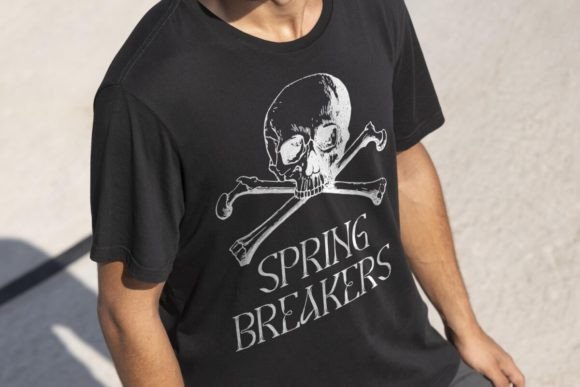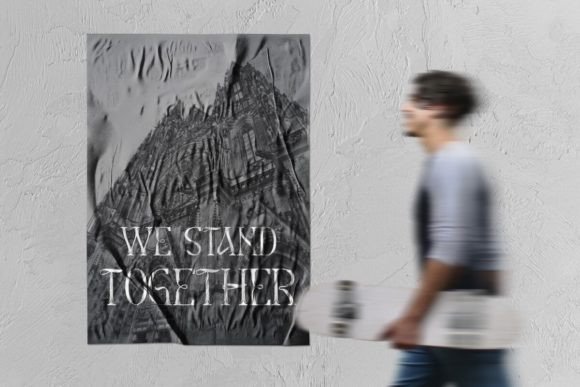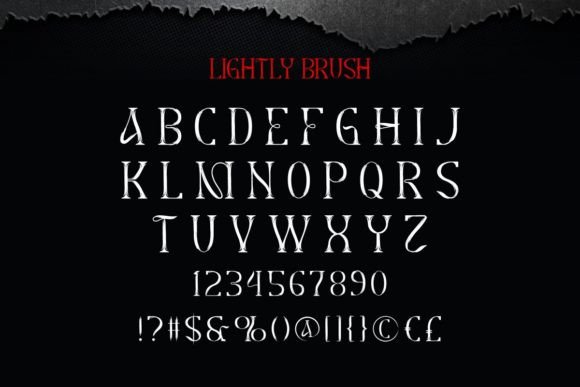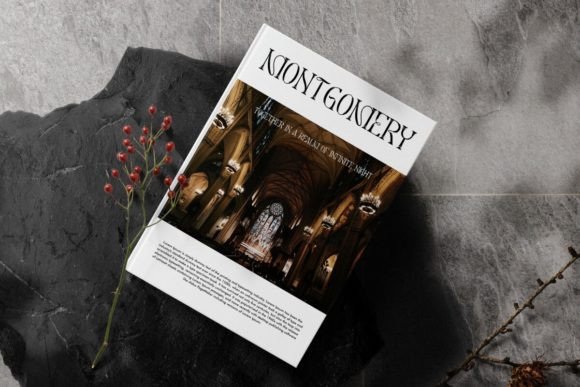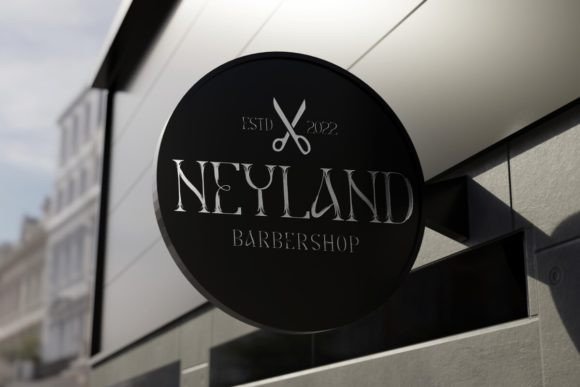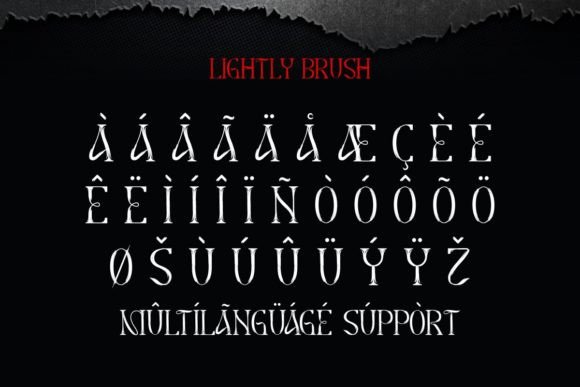
Introduction to Lightly Brush Font
Have you ever stared at a blank canvas, trying to conjure up the perfect design to captivate your audience? The blank page can be intimidating, but what if you had the right tool to bring your creative vision to life? That’s where the enigmatic Lightly Brush Font comes in – a uniquely mysterious serif display font that’s sure to add an air of sophistication and a hint of eeriness to your designs.
This captivating font is perfect for designers looking to add a touch of the unknown to their creative projects. With its free download option and transparent background, you can seamlessly integrate it into your designs, from billboards and headers to labels and posters. Whether you’re working on a high-end advertising campaign or a low-budget DIY project, the Lightly Brush Font is an invaluable design resource that’s sure to elevate your work to new heights.
Key Features of Lightly Brush Font
- High-quality design resource ideal for creative projects requiring a unique touch
- Features a transparent background, allowing for seamless integration with any design
- Perfect for designers seeking a stylish, handwritten font for their next project
- Includes a range of characters, including uppercase and lowercase letters, numbers, and punctuation
Honest Review: Lightly Brush Font
I recently came across the Lightly Brush Font, and I was excited to give it a try. As a designer, I’m always on the lookout for high-quality design resources to elevate my creative projects. The Lightly Brush Font did not disappoint.
- The font has a beautiful, hand-drawn feel that’s perfect for creative projects that require a touch of whimsy.
- The transparent background option makes it easy to layer the font over other design elements.
- The font may not be suitable for projects that require a more formal or professional tone.
- The Lightly Brush Font is a more decorative font, so it may not be the best choice for body text.
Overall, I’m really impressed with the Lightly Brush Font. It’s a high-quality design resource that’s perfect for creative projects that require a touch of personality. While it may have some limitations, I think it’s a great addition to any designer’s toolkit.
For the best results, use the Lightly Brush Font on a transparent background to give your design a clean and modern look. You can also use it in combination with other design resources, such as graphics and images, to create a unique and eye-catching design.
The Lightly Brush Font is ideal for creative projects, such as posters, flyers, and business cards. It’s also a great design resource for social media graphics, website headers, and other digital content. With its high-quality design and free download option, the Lightly Brush Font is a must-have for any designer looking to add a touch of elegance to their work.